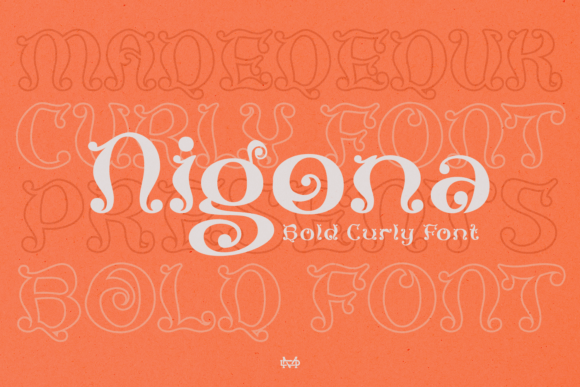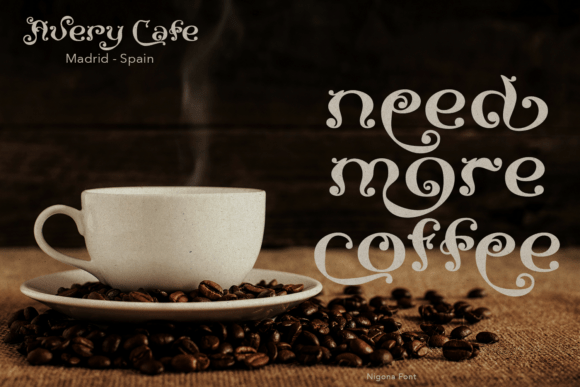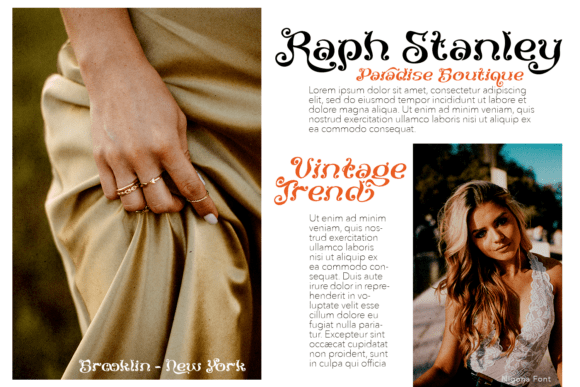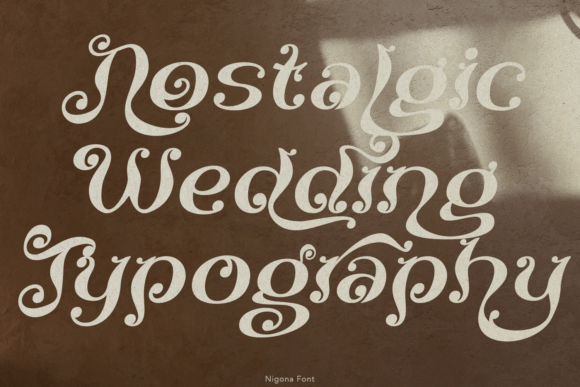
Nigona Font
About the Nigona Font
Add a touch of class to your work with the Nigona Font, a truly exceptional typeface. Nigona is a font inspired by the typography from 70’s style. This font is very perfect for many display purposes in your product design if you want to a vintage and classic style. Use it on book covers, product labels, logos badges, drink bottles, tattoo shop, coffee shops, fashion products, wedding invitation, etc.
Nigona’s bold, retro personality makes it ideal for headlines, logos, and short, impactful text on packaging or posters. It excels in projects requiring a strong vintage aesthetic, such as branding for clothing lines, coffee shops, or record labels. Avoid using it for body text or lengthy paragraphs; its strong character can become visually overwhelming in extended use.
Consider pairing Nigona with a clean sans-serif like Helvetica Neue for a balanced contrast, or a delicate script font such as Cormorant Garamond for a touch of elegance. For a more modern feel, a geometric sans-serif like Futura would complement its 70s-inspired forms.
Ultimately, Nigona is best suited for projects that demand a confident, nostalgic, and attention-grabbing presence. Its retro style is not appropriate for minimalist designs or interfaces requiring high readability.
Nigona Font Example